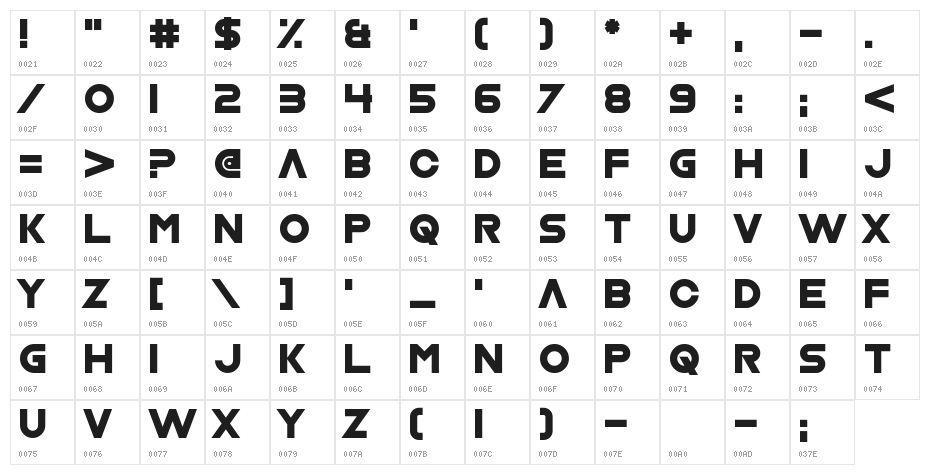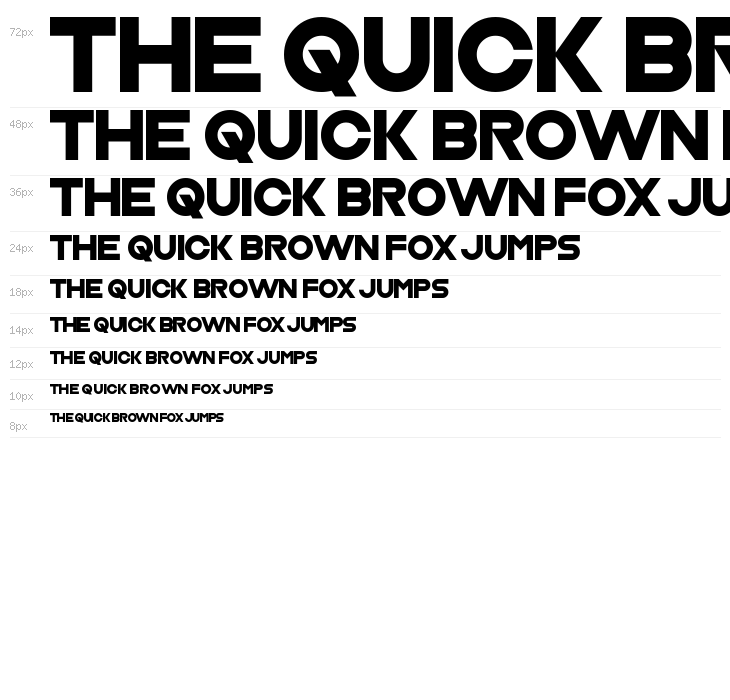
Nrvsbrkdwn Font
Nrvsbrkdwn Description
This font features a bold and geometric design with a modern and futuristic appeal. The characters are constructed with thick, uniform strokes that create a strong visual impact. Each letter is crafted with sharp angles and clean lines, giving it a distinct and assertive appearance. The font maintains a consistent weight throughout, emphasizing its boldness. The spacing between characters is tight, which enhances its compact and cohesive look. This style is particularly effective for creating attention-grabbing headlines and logos, where a strong and contemporary aesthetic is desired.